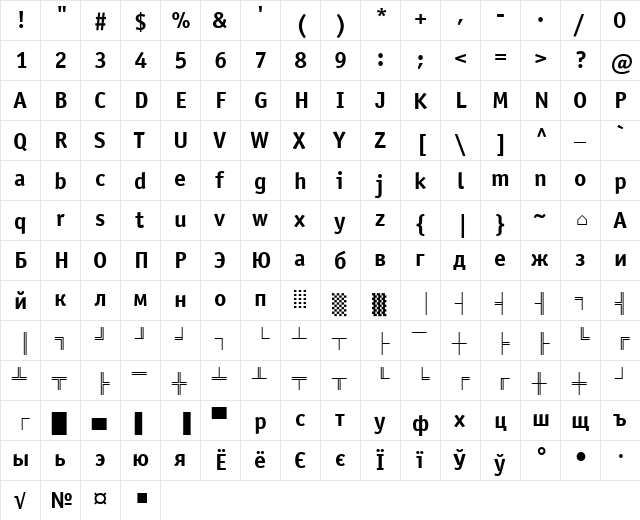
OfficinaSansDOSCTT Bold
Design Context for OfficinaSansDOSCTT Typeface
OfficinaSansDOSCTT is a composed and adaptable typeface that performs quietly and consistently across a wide range of design contexts. Its bold stroke weight gives it real presence on the page.